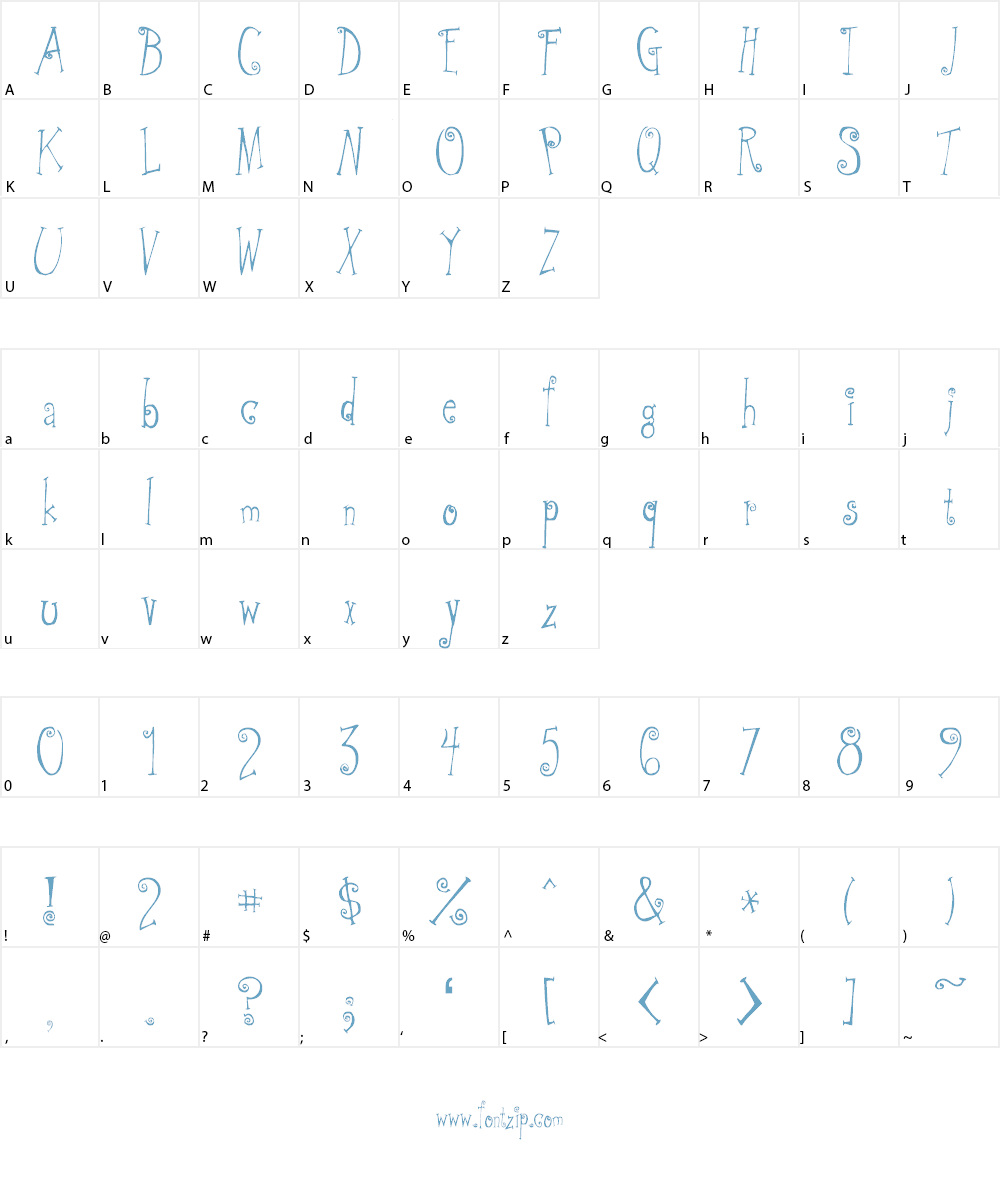
Greywolf Quirk
A decorative font by T. Jordan "Greywolf" Peacock
This is a font I drew up for the sake of being weird and quirky. It includes the full regular keyboard set, plus a number of special symbols not normally accessible from the keyboard. It's best used in larger sizes, and for decorative purposes, as readability suffers a bit due to odd spacing and structures.
Non-keyboard characters implemented include card suites (heart, diamond, spades, clubs), smiley and frowning faces, check, TM, (R), (C), cents, pounds sterling, yen, section, en-dash, and em-dash.